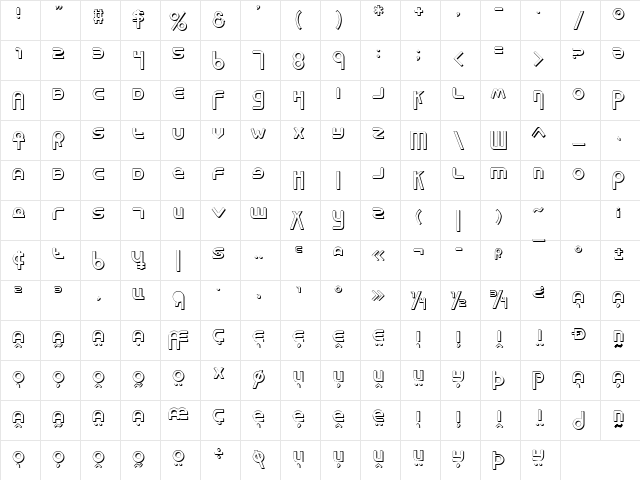
Milk Bar Shadow Shadow
Style: Shadow
Designer: Dan Zadorozny
Design Context for Milk Bar Shadow
Milk Bar Shadow is built around its visual character rather than neutral utility - its distinctive forms are designed to make an impression at display sizes.
Font Pairing: Pair with a clean neutral sans-serif for body copy to let Milk Bar Shadow's character lead without overwhelming the composition.
Pro Tip: Use Milk Bar Shadow exclusively at display sizes - it was designed to be seen, not read at length. Let a neutral companion handle body copy.